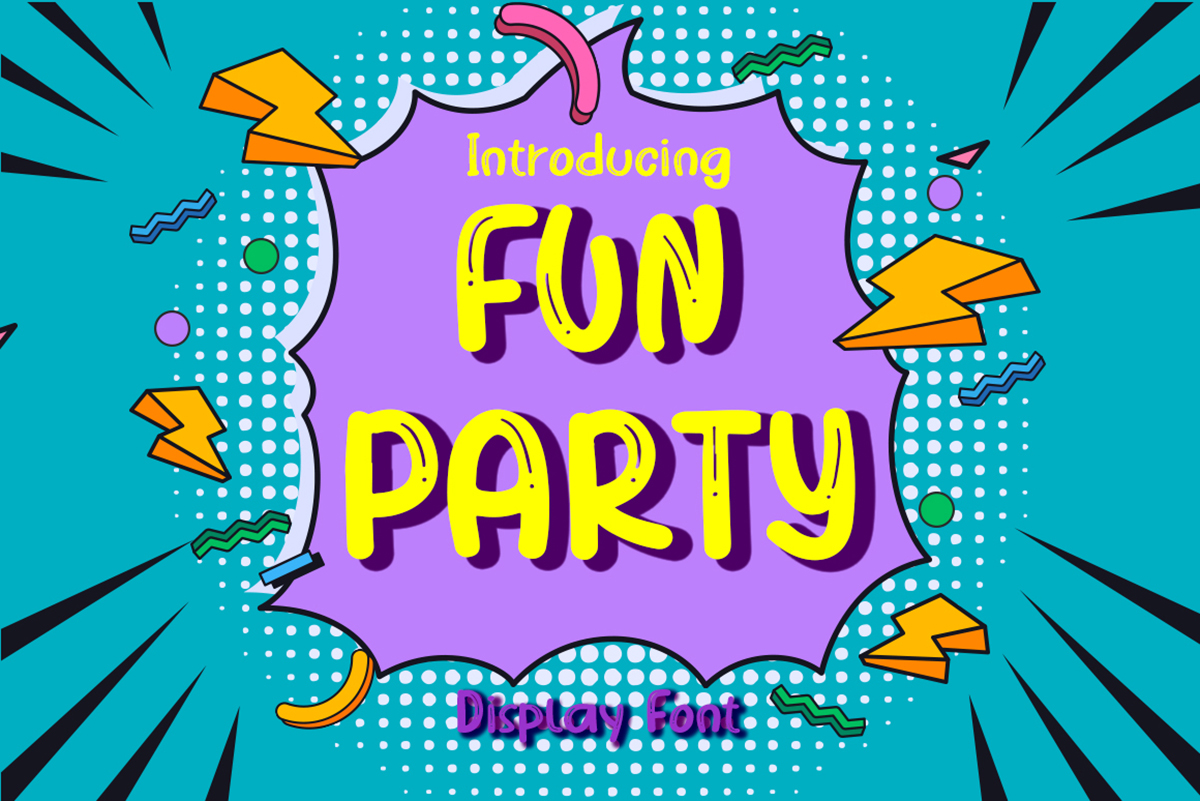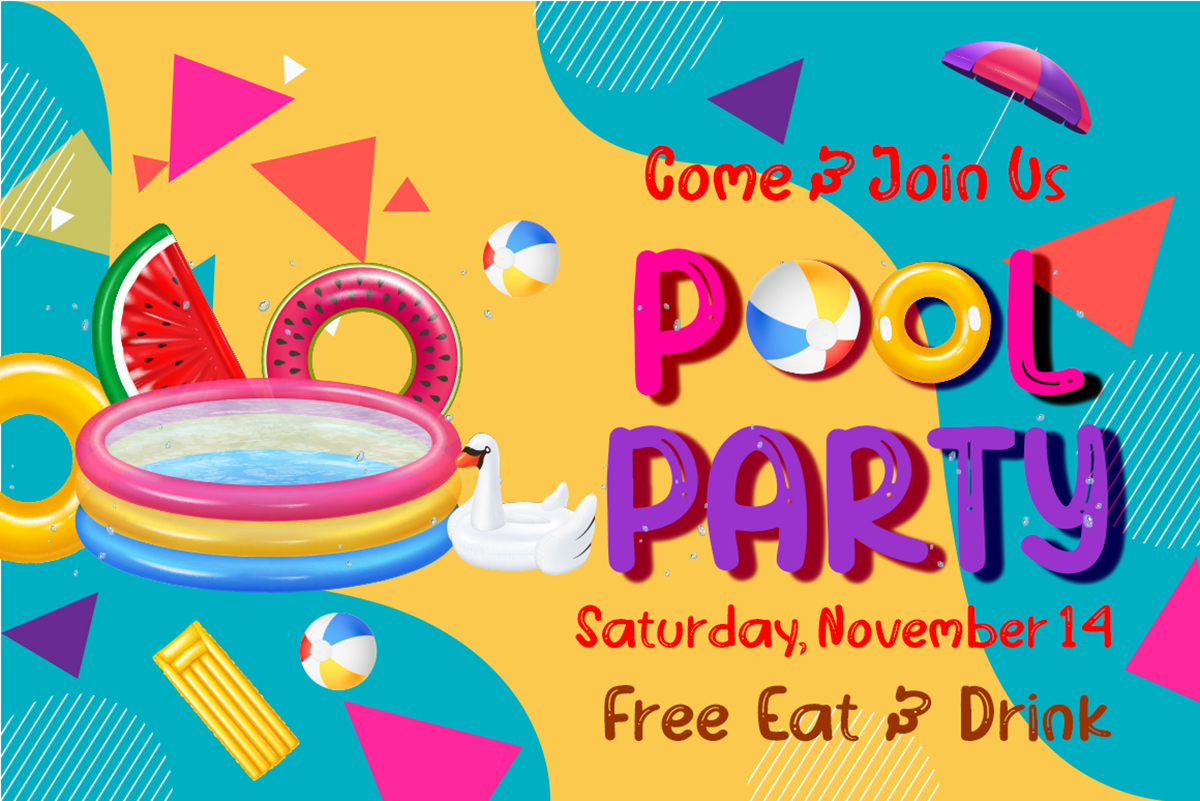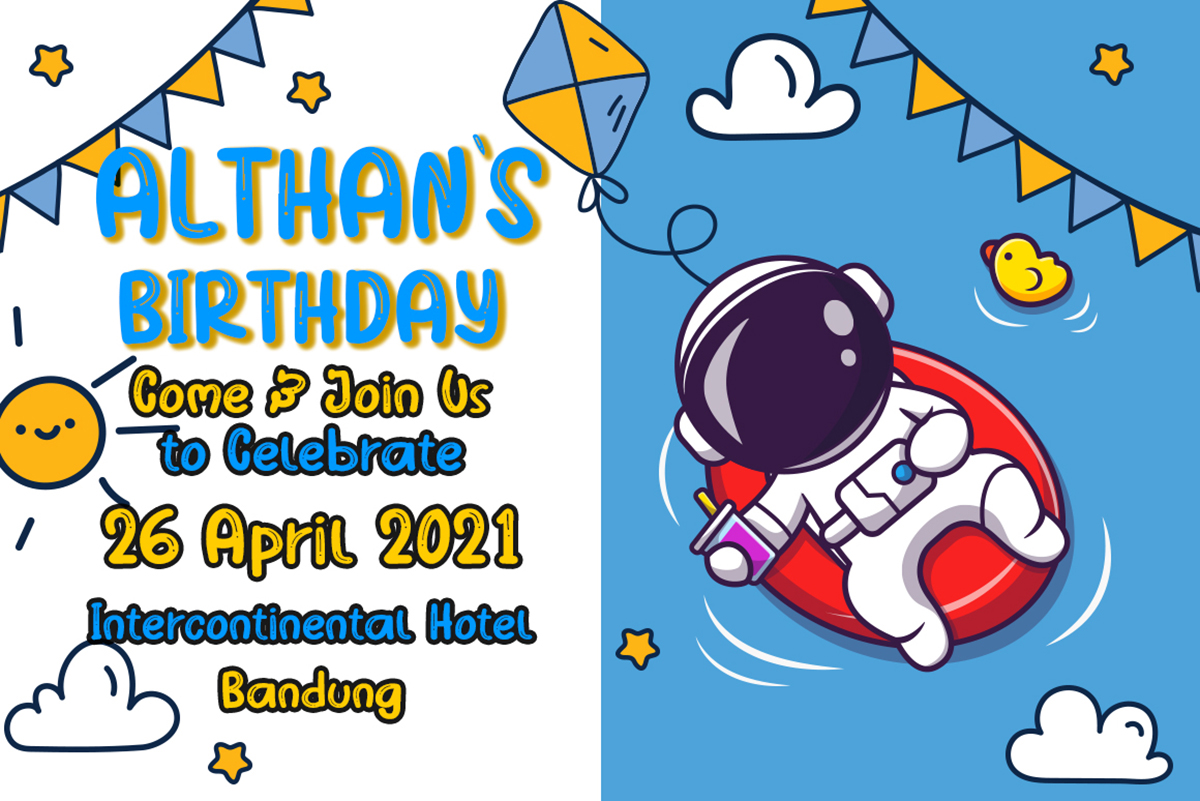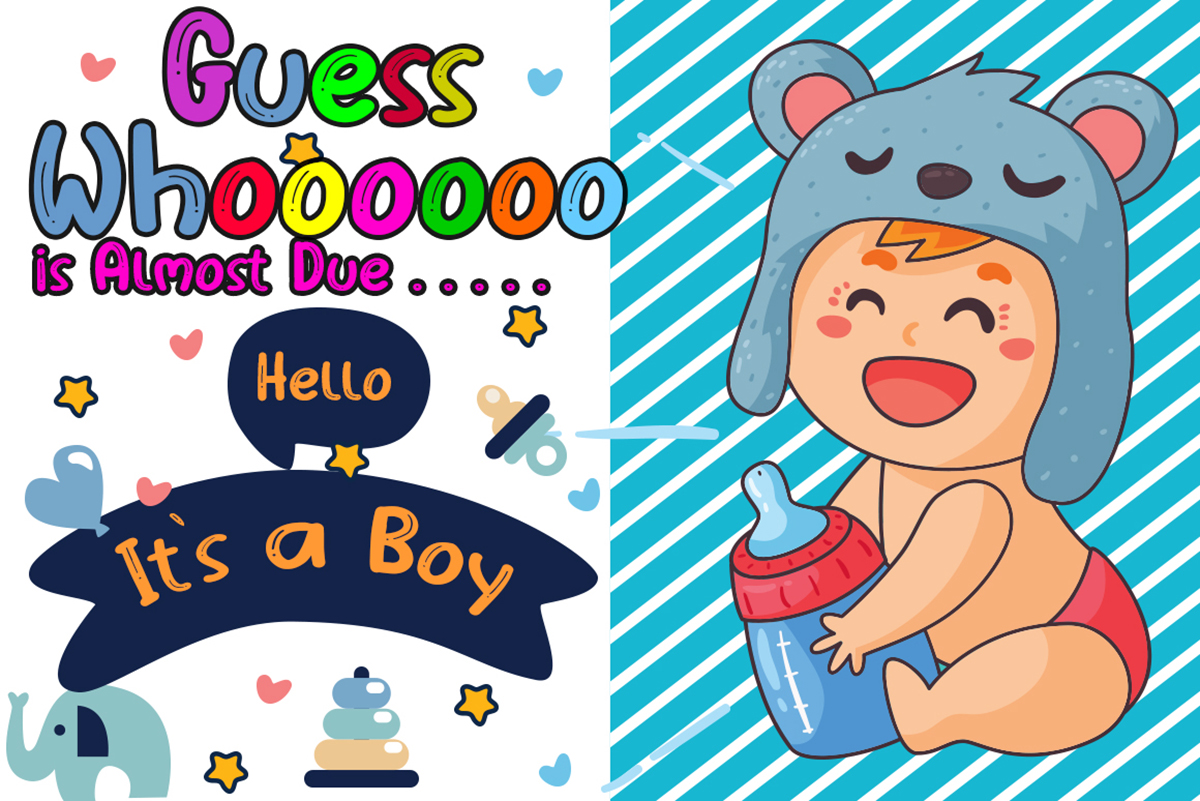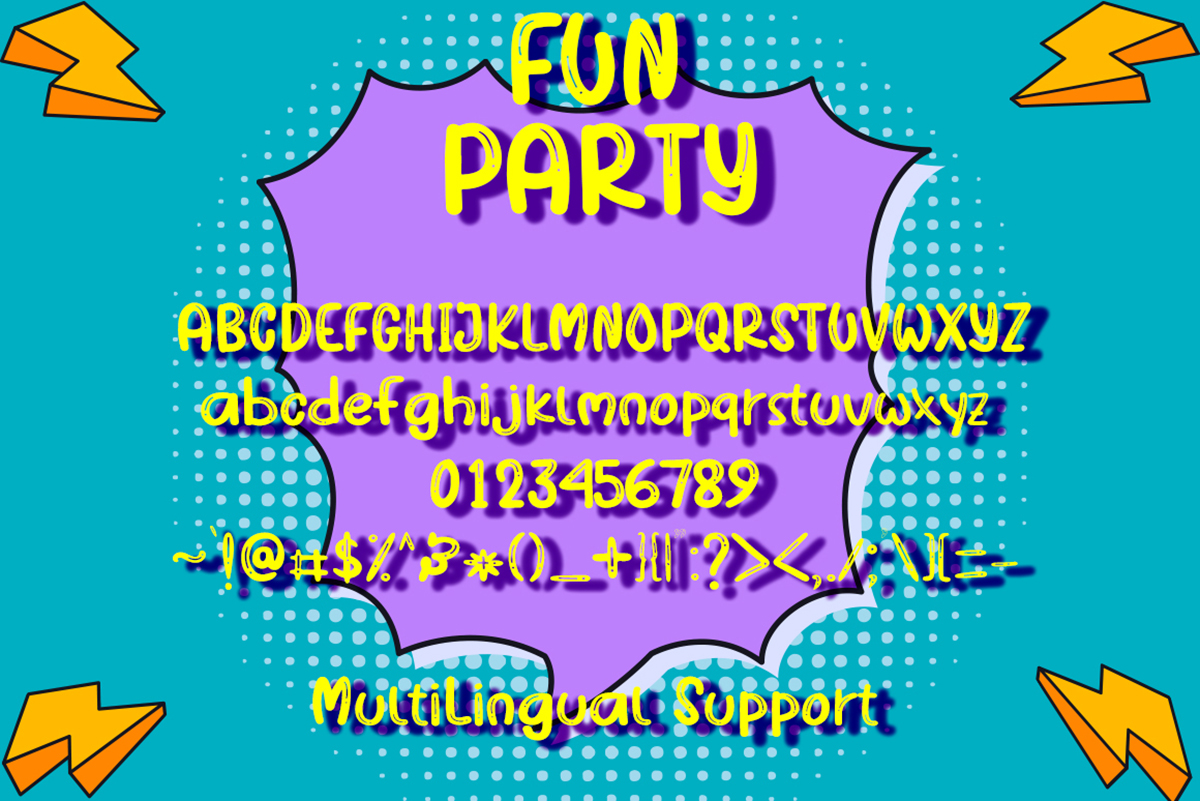
Fun Party Free Font
Fun Party Free Font is a quirky and fun font. Its whimsical look will cheer up any project from greeting cards, logos, stationery, and more. This free typeface was designed by the talented Booga Letter Studio. If you like it don’t forget to check out the full version.